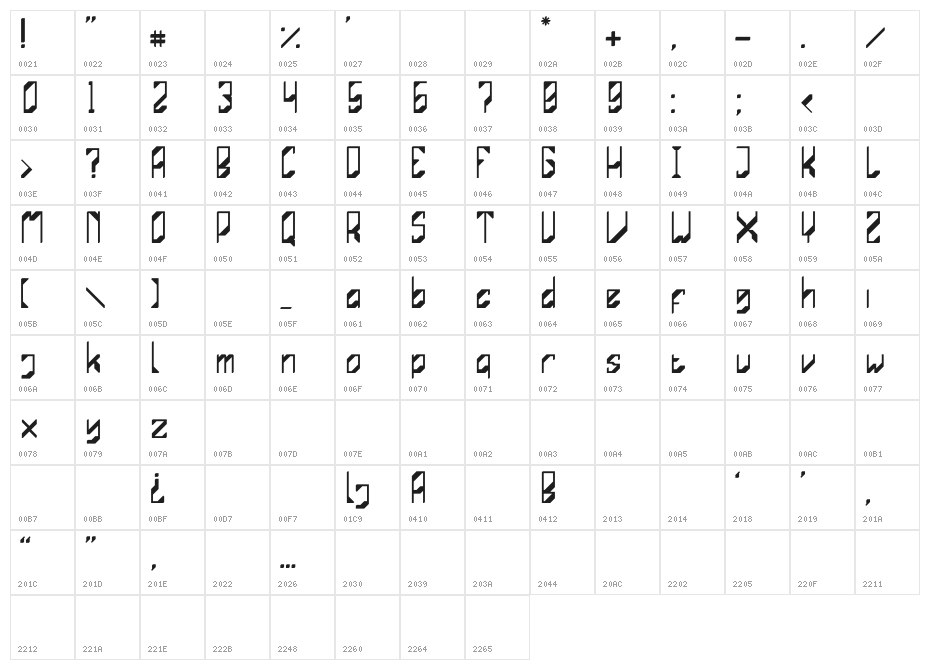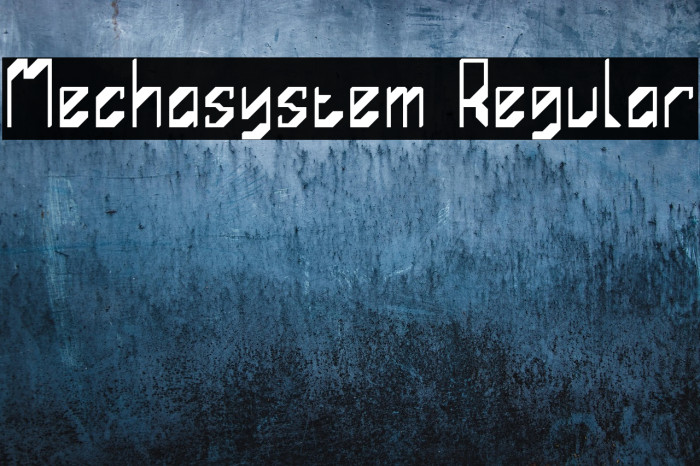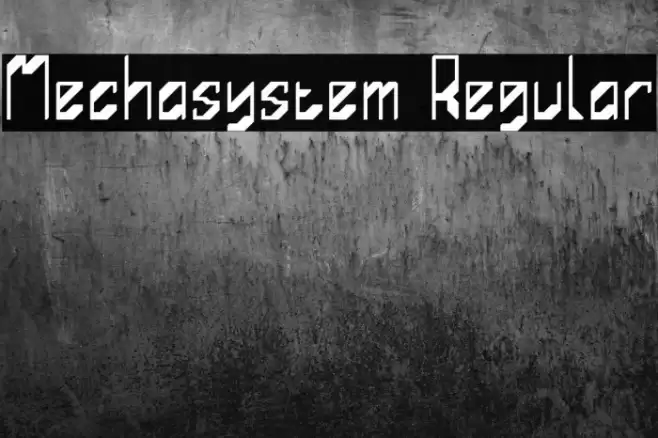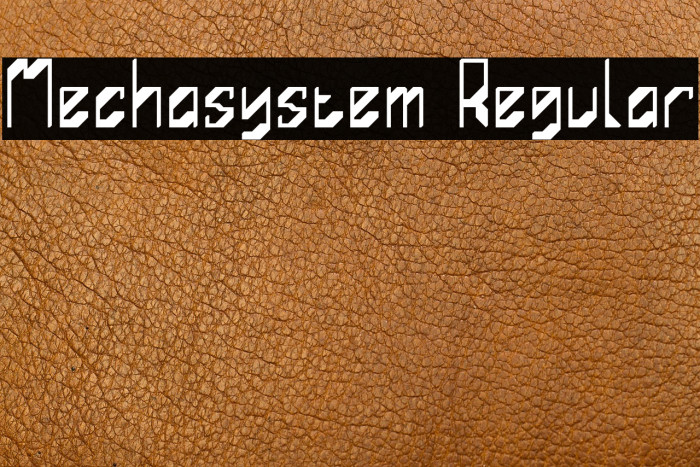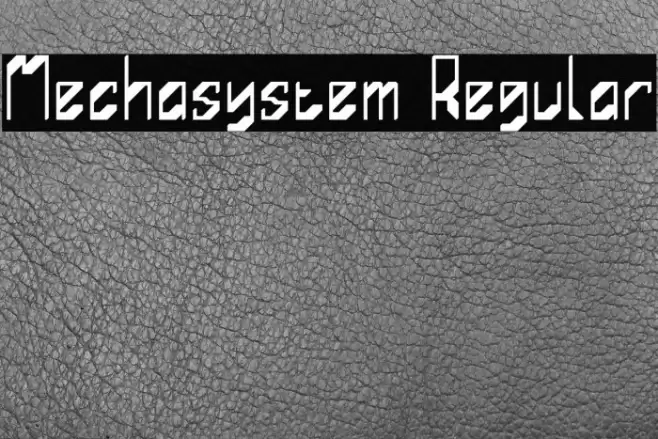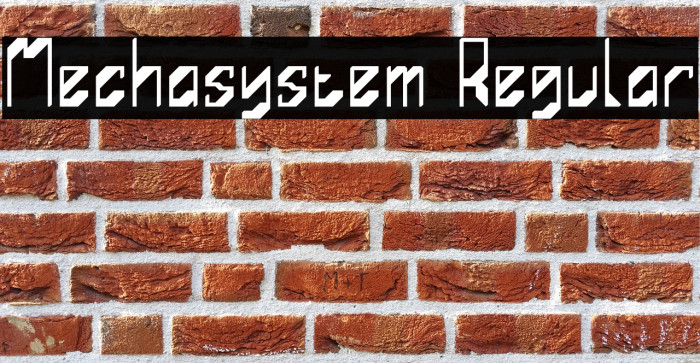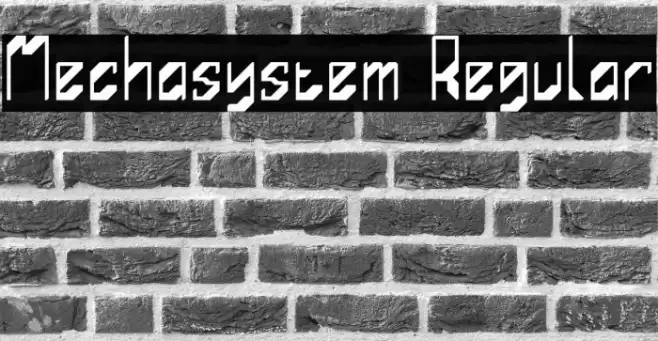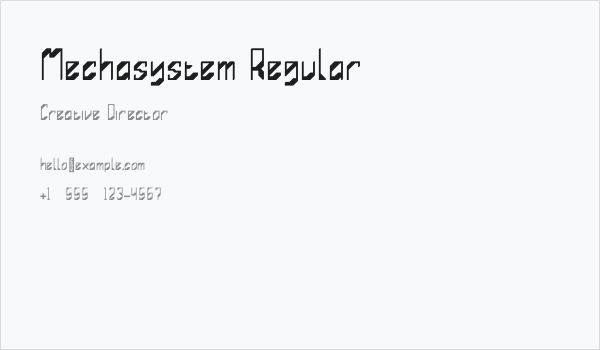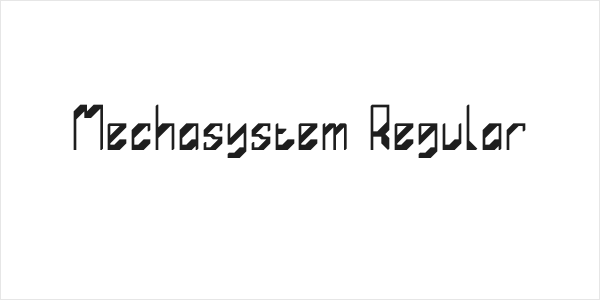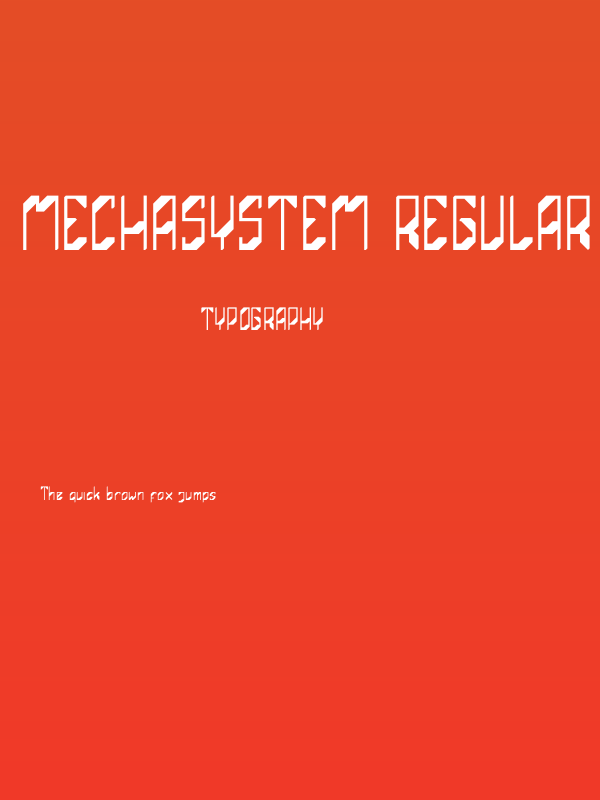
Mechasystem Regular Font
Mechasystem Regular Description
This font features a futuristic and angular design, characterized by sharp edges and geometric shapes. The uppercase and lowercase letters maintain a consistent style, with a mechanical and robotic aesthetic. The numerals and special characters follow the same design principles, making the font cohesive and visually striking. Its unique appearance makes it stand out, suitable for projects that require a modern and tech-inspired look. The font's structure is bold and impactful, ensuring readability while maintaining its distinctive style.
| Proposed Projects | Ideal for tech branding, sci-fi posters, video game titles, and futuristic-themed designs. |